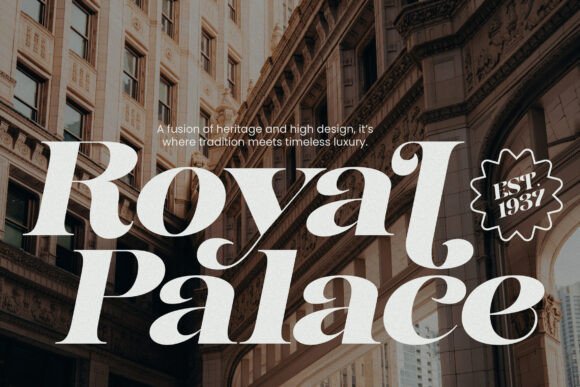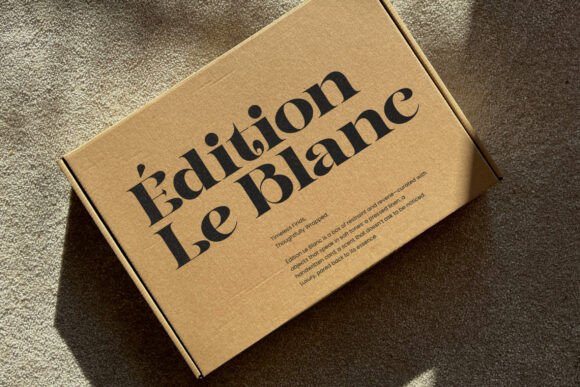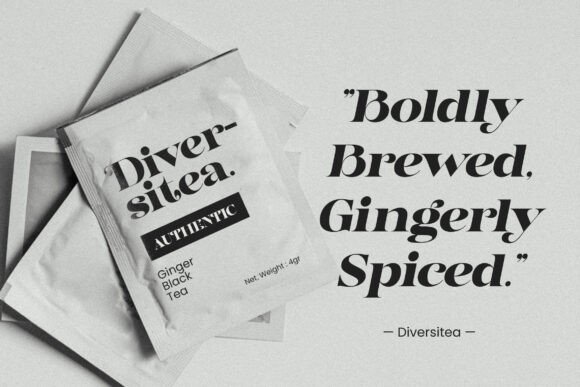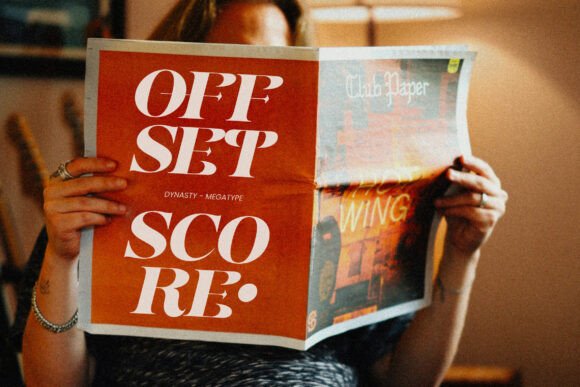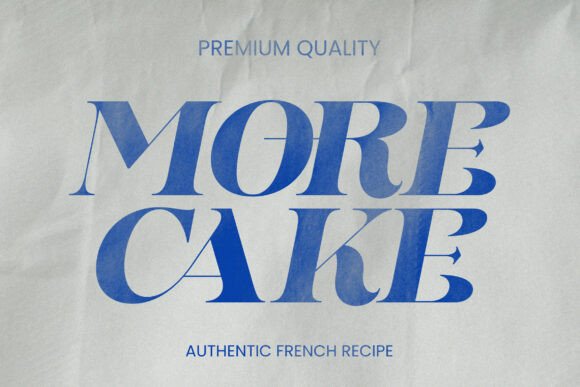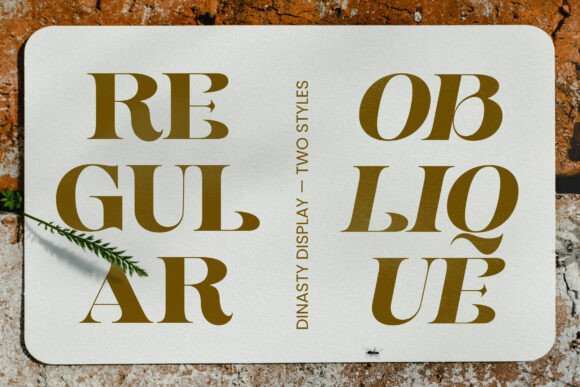
Dynasti Display Font: Elevate Your Designs with Elegance and Sophistication
In the world of typography, a font can make or break a design. When it comes to making a statement, Dynasti Display Font is an excellent choice. This bold decorative serif typeface is characterized by its striking contrast between thick and thin strokes and its ornate, almost calligraphic elements. In this article, we’ll explore the features and benefits of Dynasti Display Font, and how it can elevate your designs to new heights.
Unique Features of Dynasti Display Font
Dynasti Display Font boasts a range of unique features that set it apart from other typefaces. The uppercase letters are elegant with exaggerated terminals and unique serif designs that give them a dramatic flair. The lowercase letters maintain high contrast, with some showing elaborate swashes and unusual shapes, adding an artistic touch. The italic styles introduce a pronounced slant, enhancing the typeface’s dynamic appearance.
What Makes Dynasti Display Font Stand Out
So, what makes Dynasti Display Font stand out from the crowd? Here are a few key factors:
- Striking Contrast: The contrast between thick and thin strokes creates a sense of drama and elegance, making it perfect for luxury branding and sophisticated editorial layouts.
- Ornate Elements: The calligraphic elements and swashes add an artistic touch, making it ideal for creative designs and high-end applications.
- Elegant Uppercase Letters: The exaggerated terminals and unique serif designs give the uppercase letters a dramatic flair, perfect for making a statement.
- Dynamic Italic Styles: The pronounced slant of the italic styles enhances the typeface’s dynamic appearance, adding movement and energy to your designs.
Best Use Cases for Dynasti Display Font
Dynasti Display Font is a versatile typeface that can be used in a variety of applications. Here are some of the best use cases:
- Luxury Branding: The elegant and sophisticated design of Dynasti Display Font makes it perfect for luxury brands looking to make a statement.
- Creative Designs: The ornate elements and artistic touch of the font make it ideal for creative designs, such as posters, flyers, and brochures.
- Sophisticated Editorial Layouts: The font’s dramatic flair and dynamic appearance make it perfect for sophisticated editorial layouts, such as fashion magazines and high-end publications.
Tips for Using Dynasti Display Font
Here are some tips for getting the most out of Dynasti Display Font:
- Use it Sparingly: Due to its bold and dramatic design, it’s best to use Dynasti Display Font sparingly to avoid overwhelming the reader.
- Pair it with a Simple Font: Pairing Dynasti Display Font with a simple font can create a striking contrast and add visual interest to your design.
- Experiment with Different Sizes: Experimenting with different sizes and styles can help you find the perfect combination for your design.
In conclusion, Dynasti Display Font is a powerful tool for designers and crafters looking to elevate their designs with elegance and sophistication. Its unique features, such as striking contrast, ornate elements, and elegant uppercase letters, make it perfect for luxury branding, creative designs, and sophisticated editorial layouts. By following the tips outlined in this article, you can get the most out of Dynasti Display Font and take your designs to new heights.
Whether you’re a seasoned designer or just starting out, Dynasti Display Font is definitely worth checking out. So why not give it a try and see how it can transform your designs?